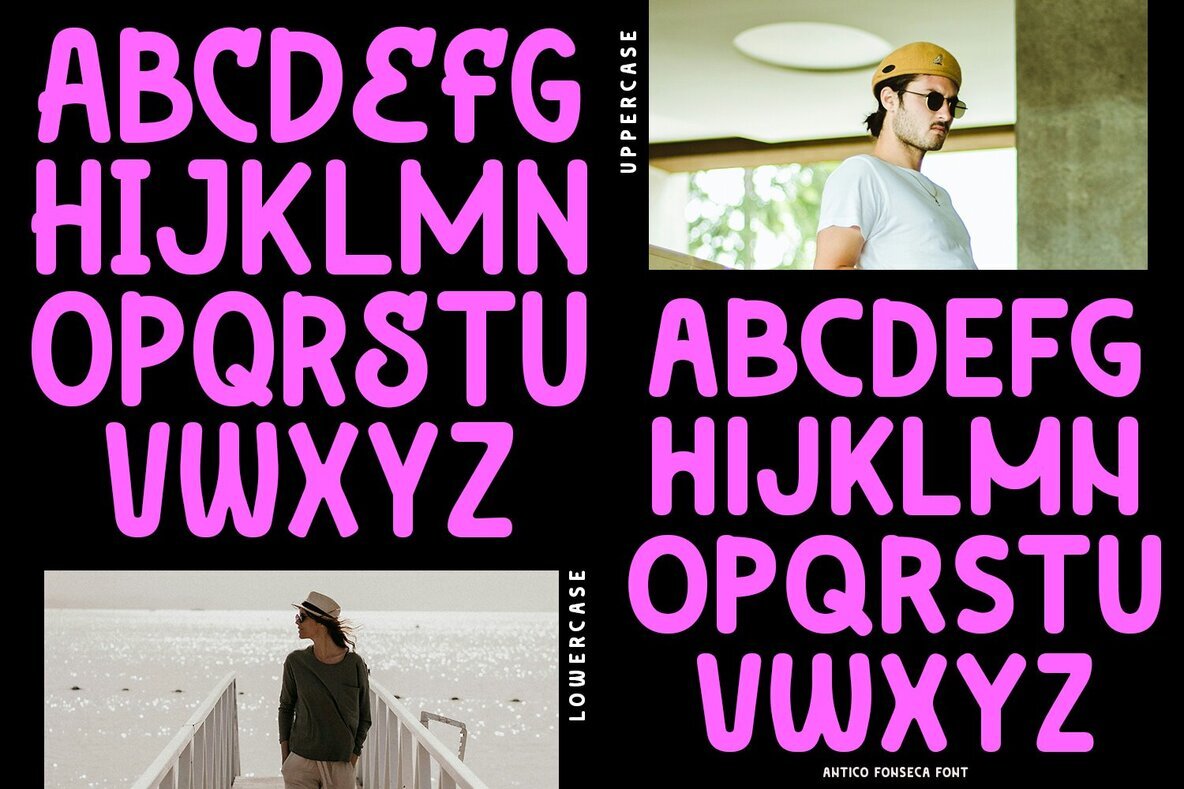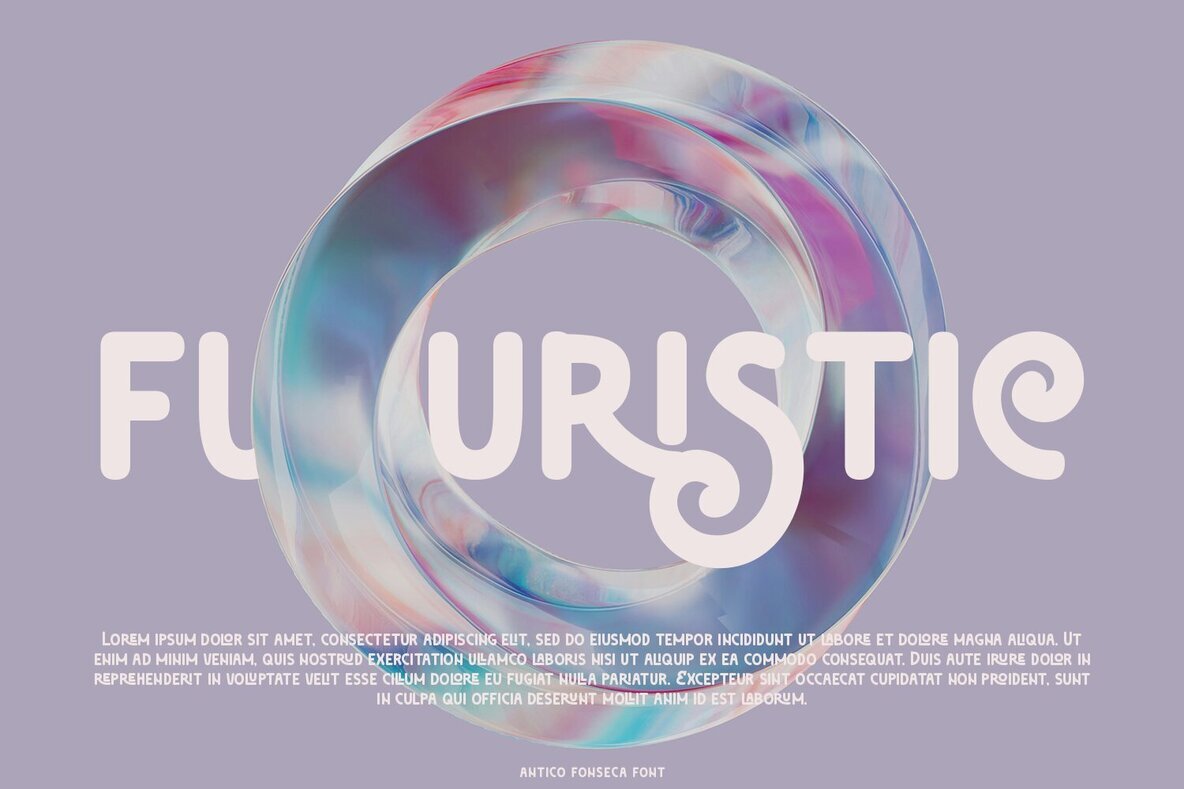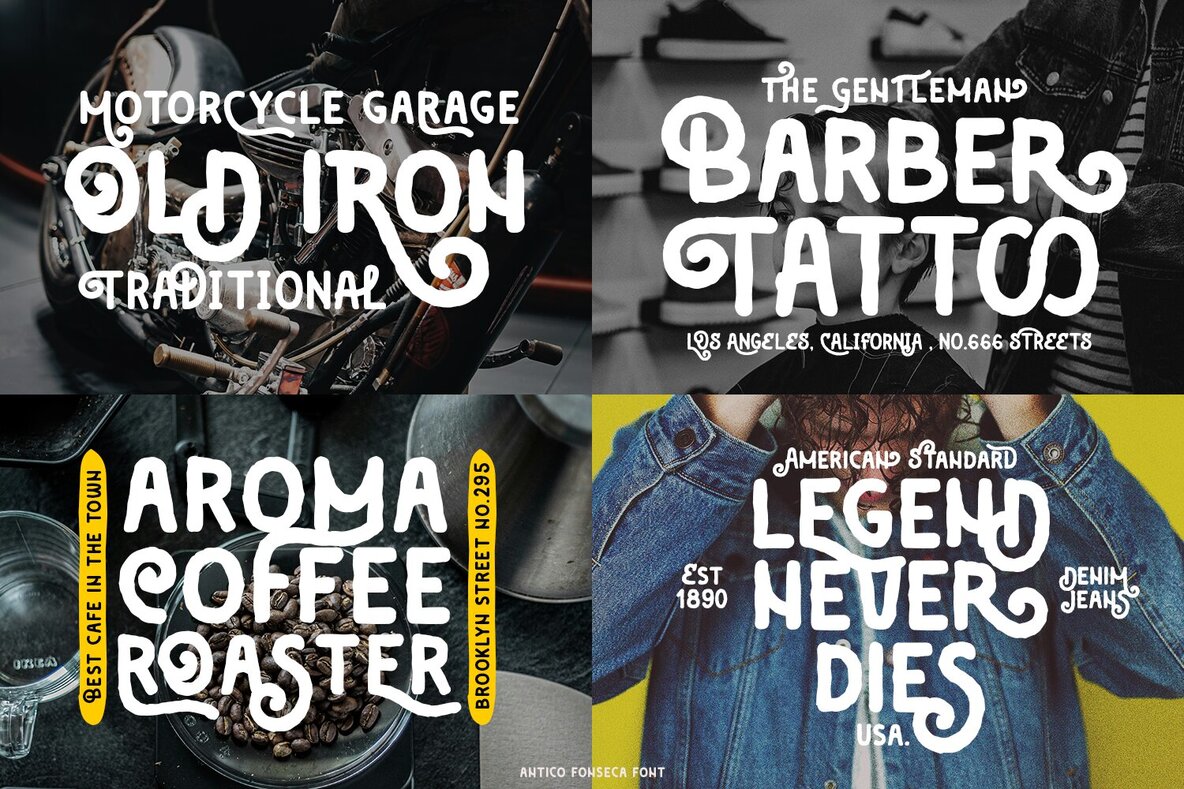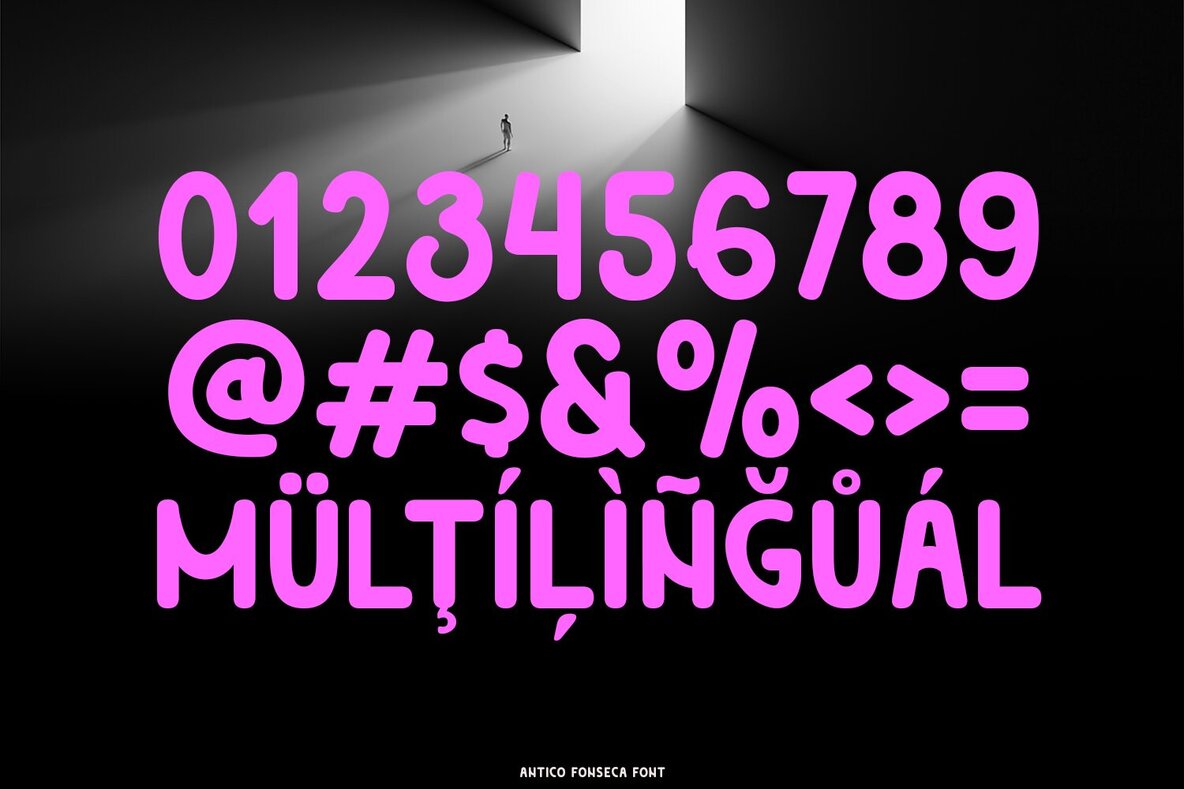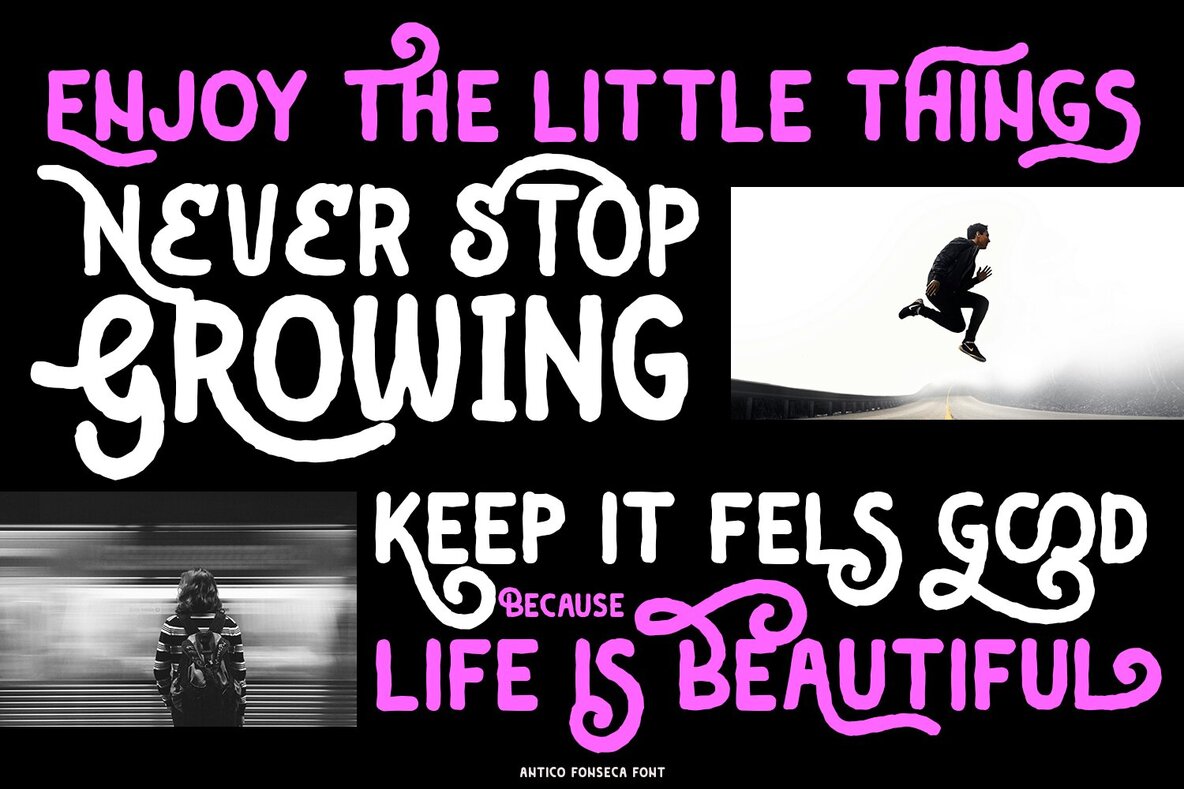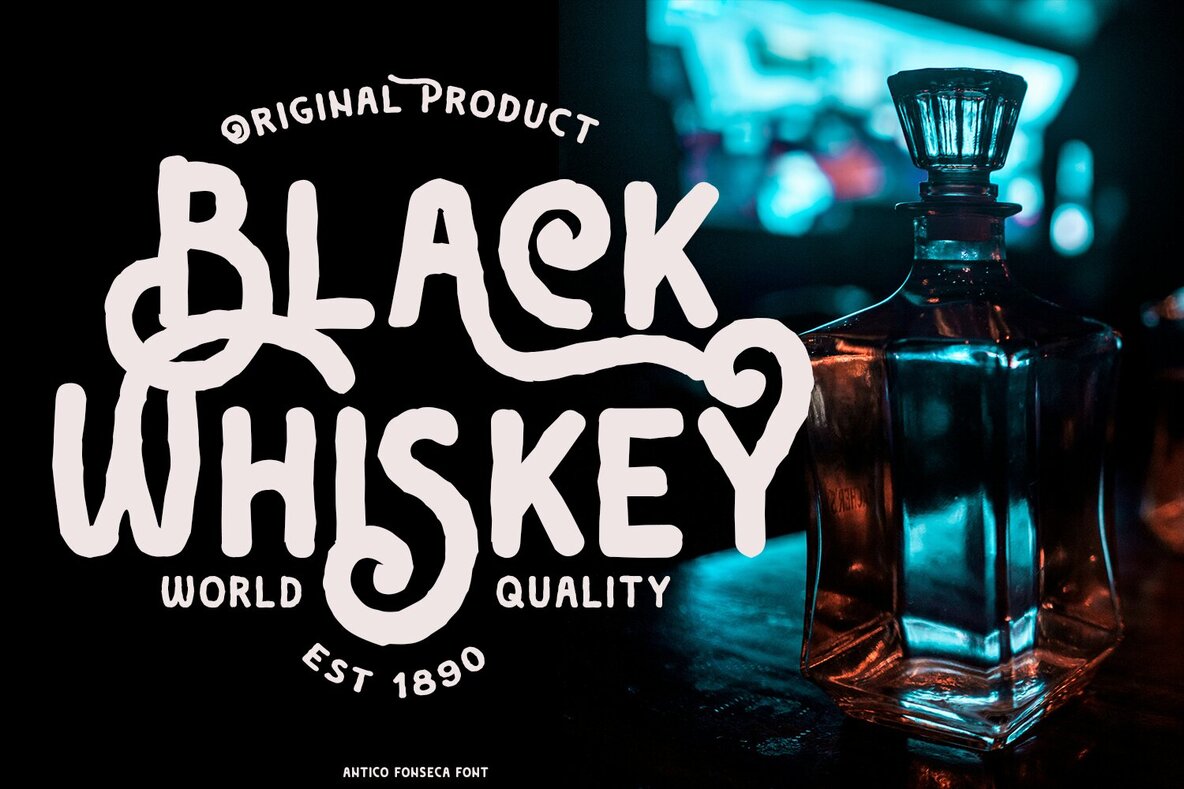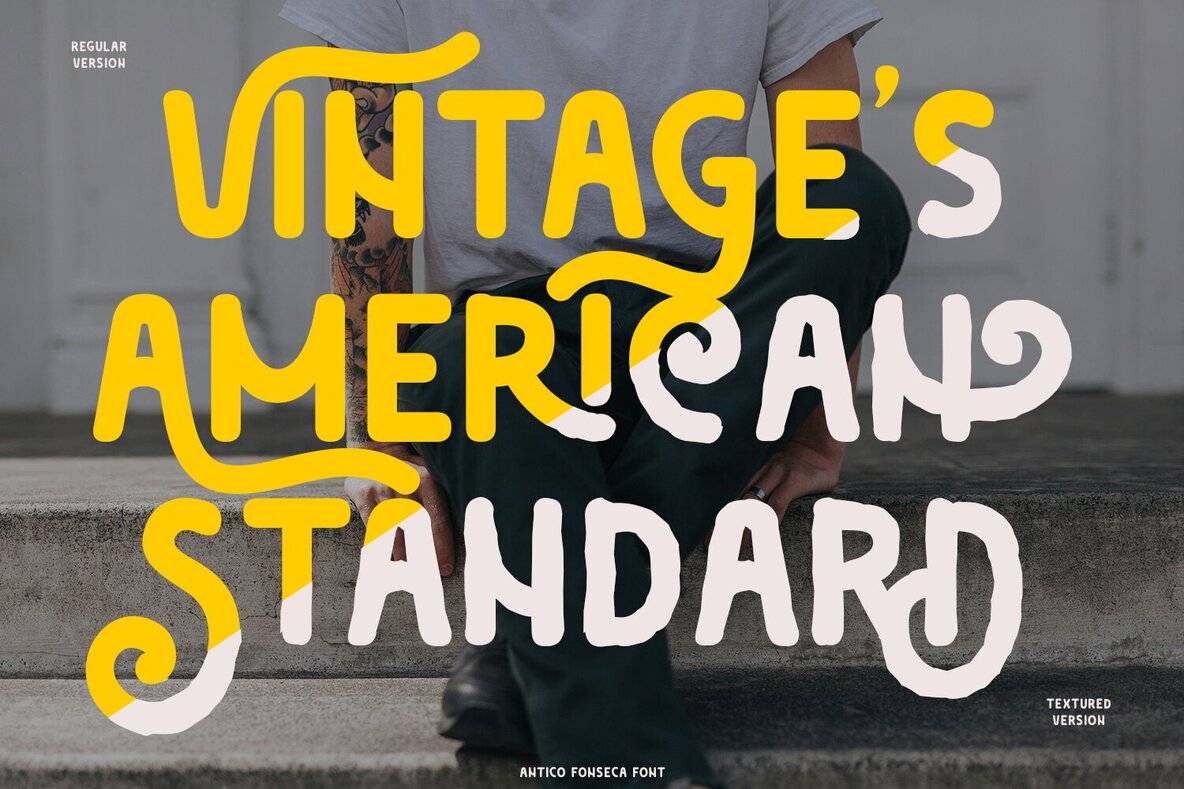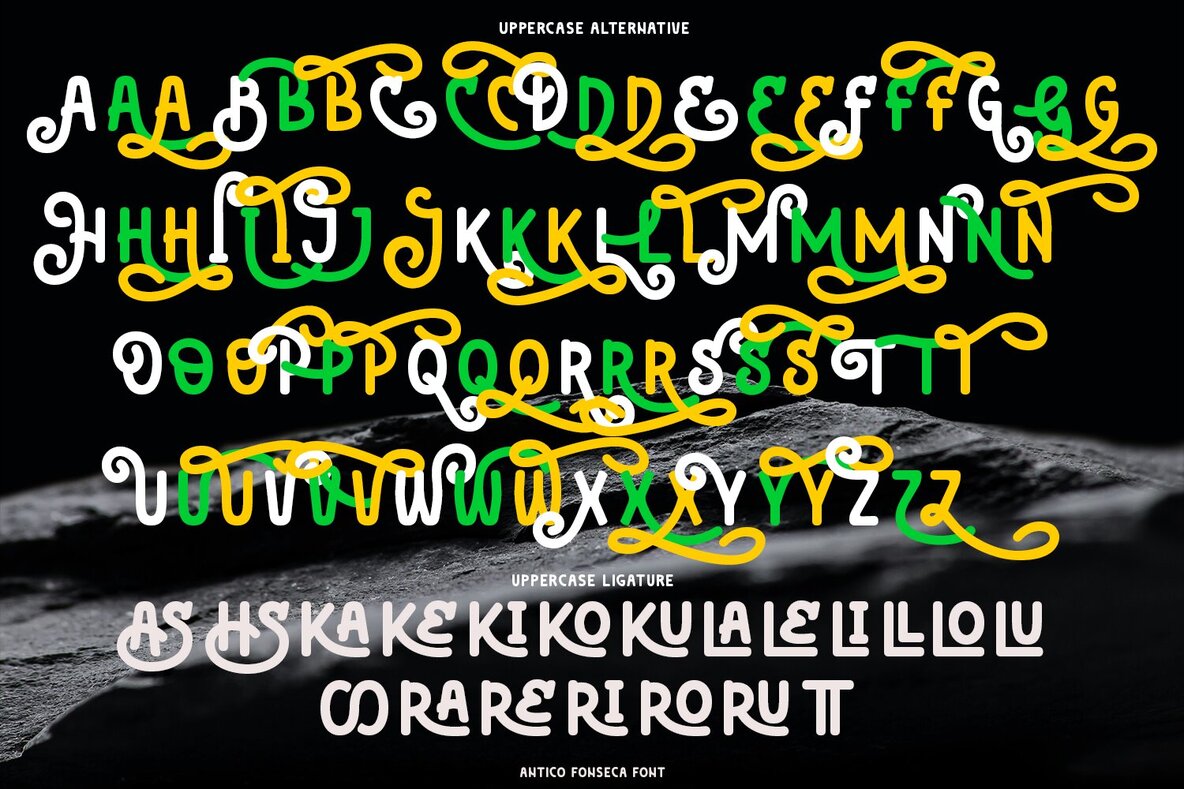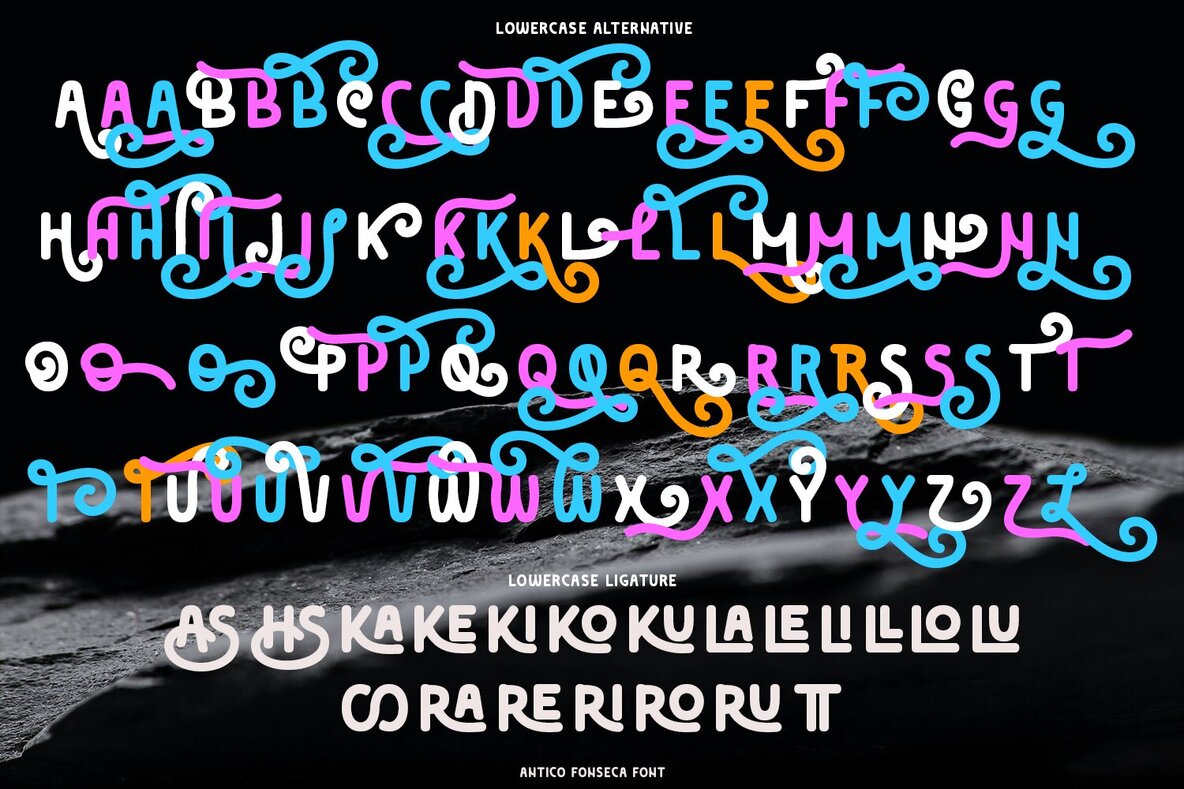
Antico Fonseca Font
Antico Fonseca is a vintage-inspired typeface that excels in traditional design projects. Its classic appeal makes it an ideal choice for crafting quotes, logos, and badges. This typography style seamlessly integrates into a variety of design contexts, offering a nostalgic yet functional aesthetic that resonates with graphic designers looking to implement a timeless touch in their work.
Featuring both regular and textured styles, the typeface provides ample flexibility. With an array of alternates and ligatures, it offers designers a toolkit to customize and refine their compositions. This versatility allows for unique, tailored designs that stand out across different mediums, ensuring Antico Fonseca meets the creative demands for diverse visual projects.